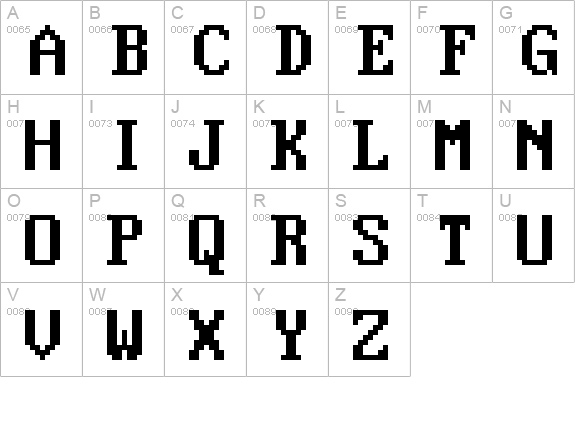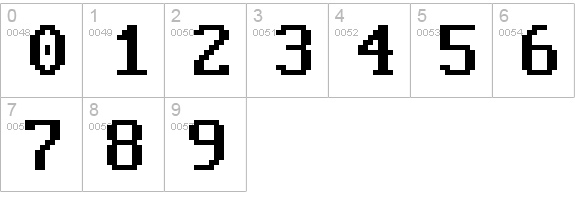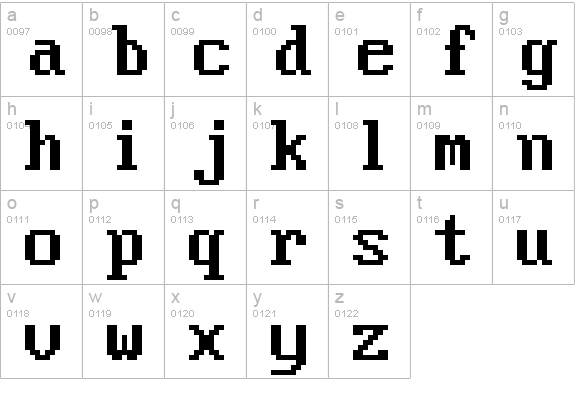
Perfect DOS VGA 437 Win Font Details
The Perfect DOS VGA 437 Win font is a remarkable typeface that embodies the essence of nostalgia and simplicity. With its clean and pixel-perfect design, this font takes us back to the golden era of computing, where DOS ruled the digital landscape. This font is an exceptional choice for anyone seeking a retro aesthetic with a modern twist. Its distinct and sharp appearance makes it ideal for various design projects, such as creating eye-catching logos, captivating headlines, or crafting visually engaging posters. One of the most appealing aspects of the Perfect DOS VGA 437 Win font is that it is freely available to download at FontsMarket.com. This means that you can easily enhance your creative endeavors without breaking the bank. Whether you are a graphic designer, a web developer, or simply an individual with a passion for design, this font is a must-have in your library. The Perfect DOS VGA 437 Win font features a comprehensive character set, allowing you to effortlessly convey your message in a clear and concise manner. Its versatility extends to different sizes and resolutions, ensuring that your text remains legible and visually appealing across various platforms and devices. With its timeless appeal and nod to the past, the Perfect DOS VGA 437 Win font will infuse your projects with a touch of vintage charm and authenticity. Whether you are aiming for a retro gaming vibe or simply want to add a hint of nostalgia to your designs, this font is the perfect choice. Download the Perfect DOS VGA 437 Win font for free at FontsMarket.com and embark on a journey through time. Let this font transport you back to an era where simplicity reigned, and where every pixel had a purpose. Unleash your creativity and elevate your designs with this remarkable typeface that effortlessly blends the past with the present.